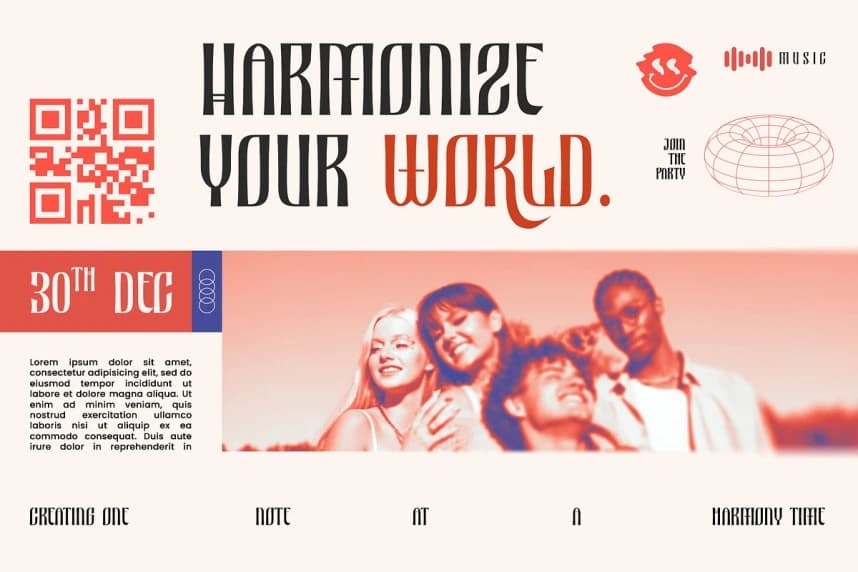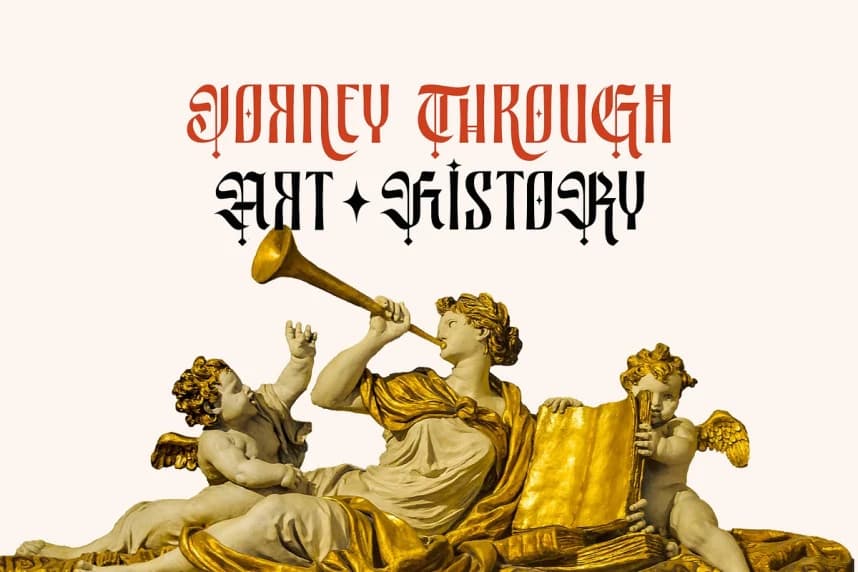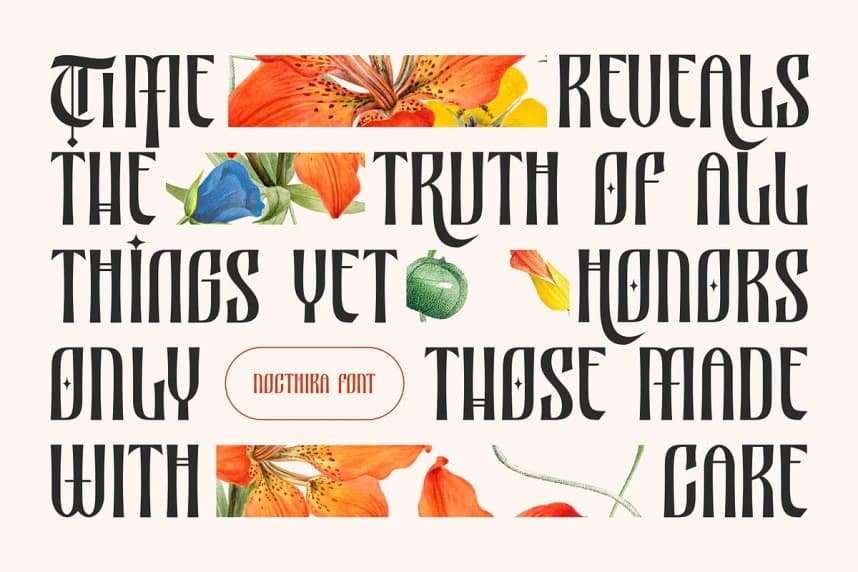
Nocthira Font
Nocthira Font is a bold and artistic blackletter typeface that blends vintage gothic elegance with a refined modern touch. Inspired by classic medieval lettering, Nocthira features dramatic strokes, sharp serifs, and ornamental details that create a strong